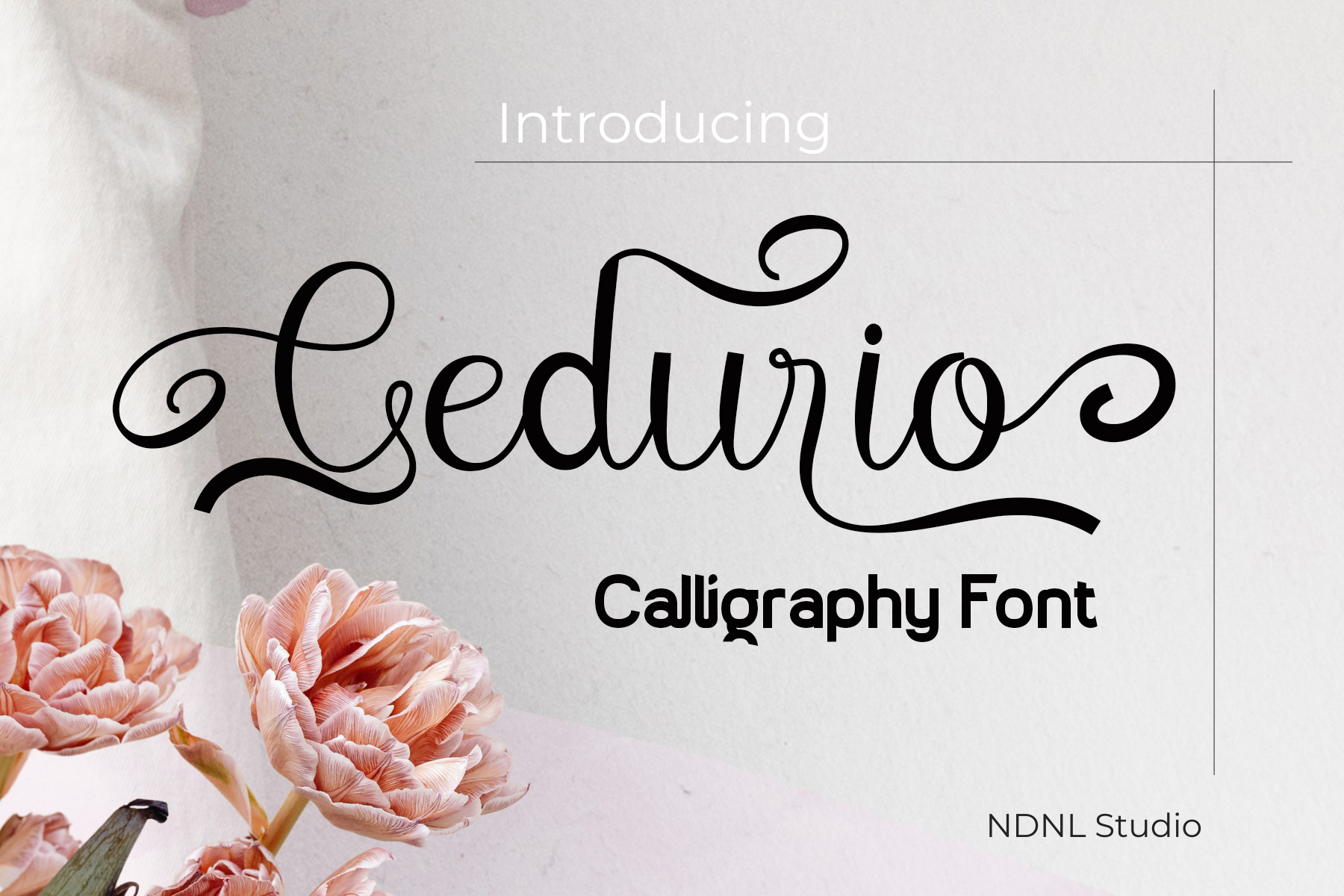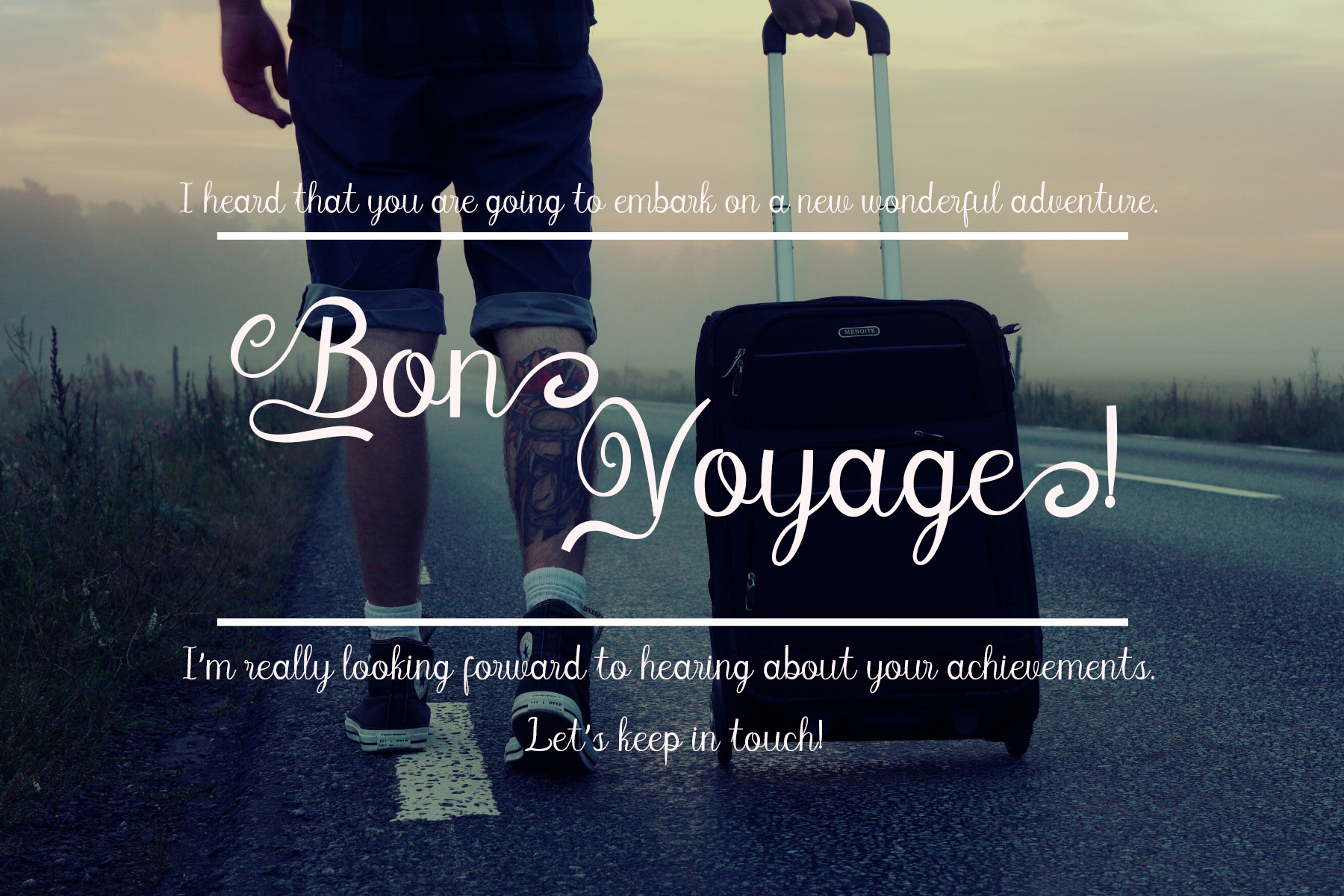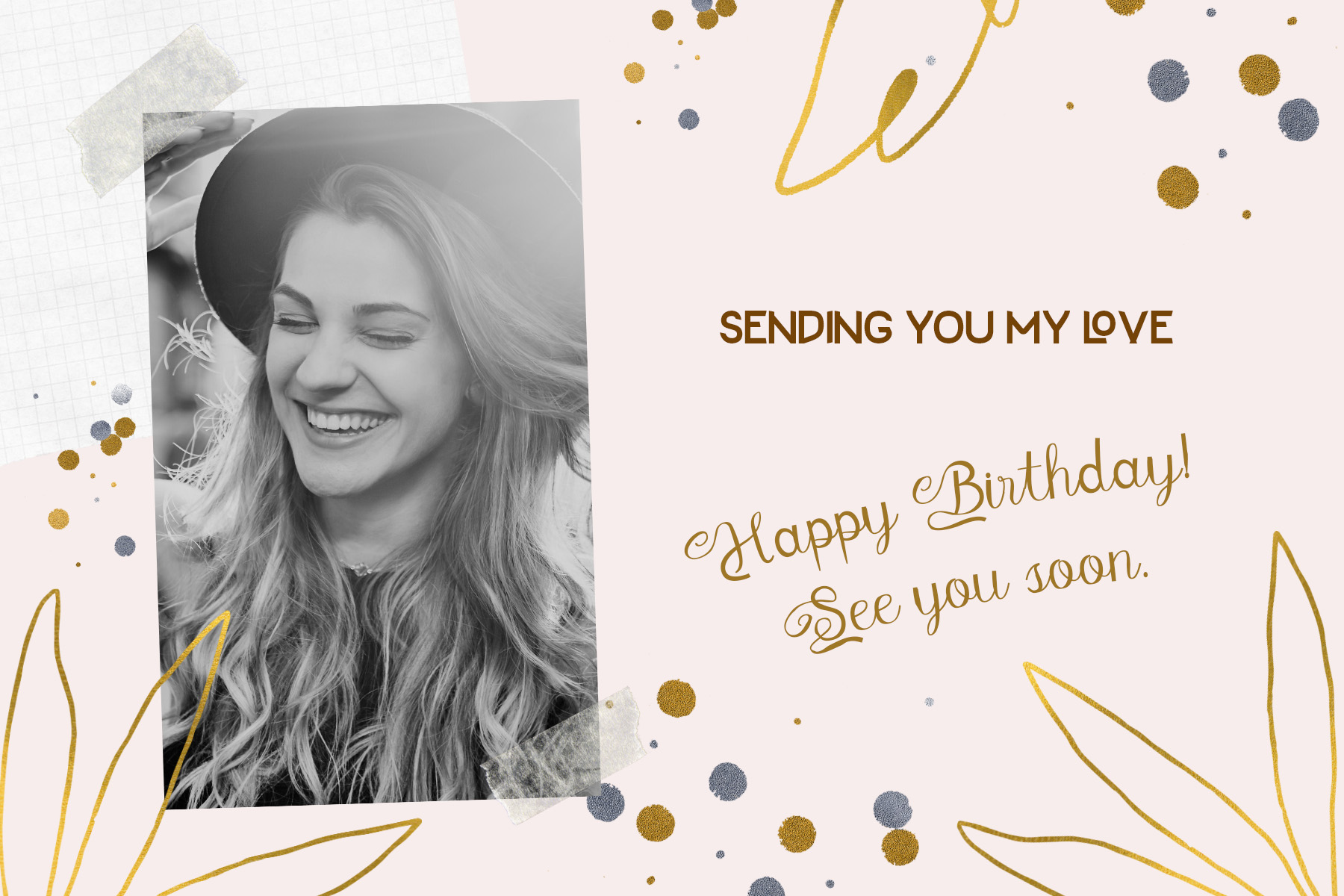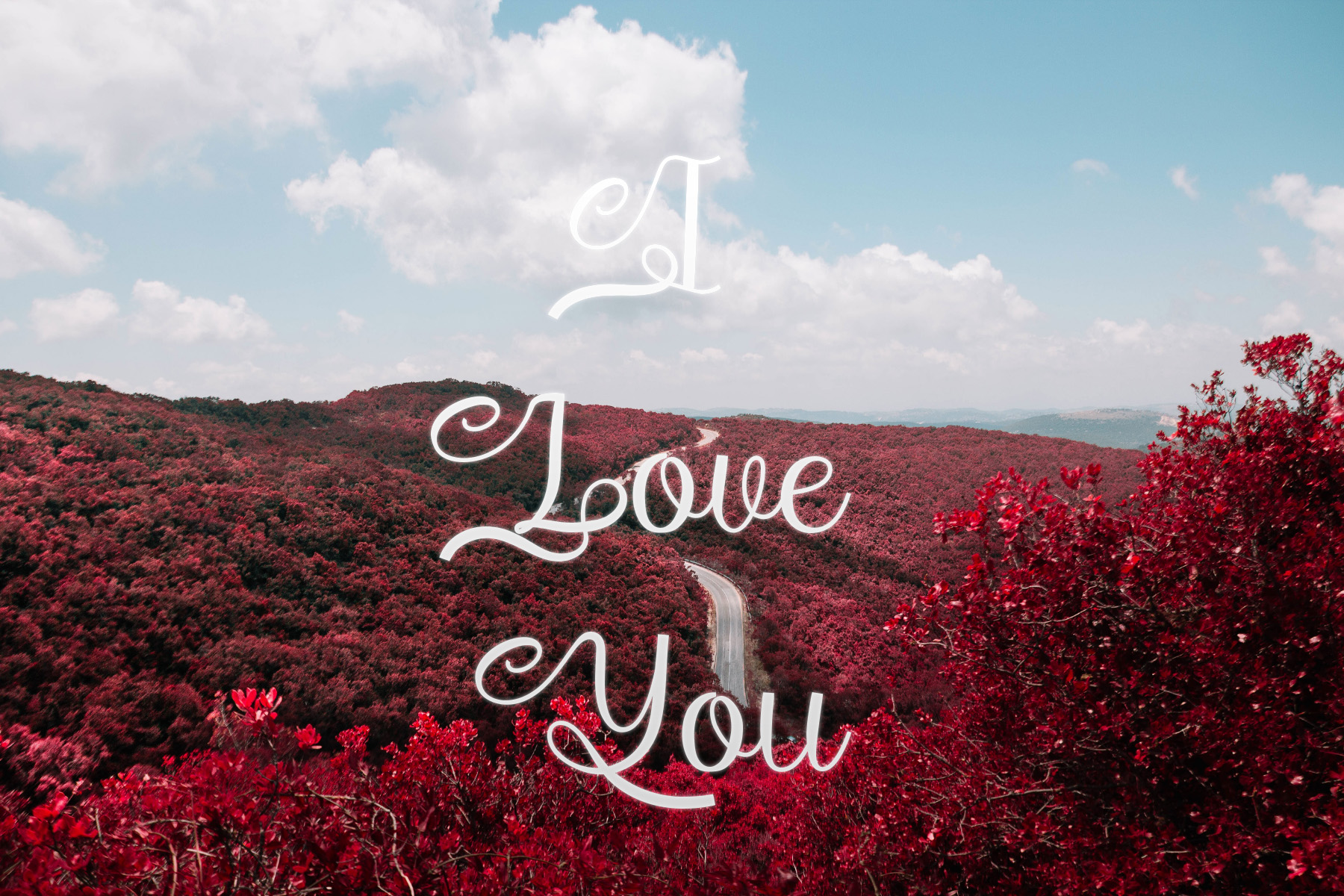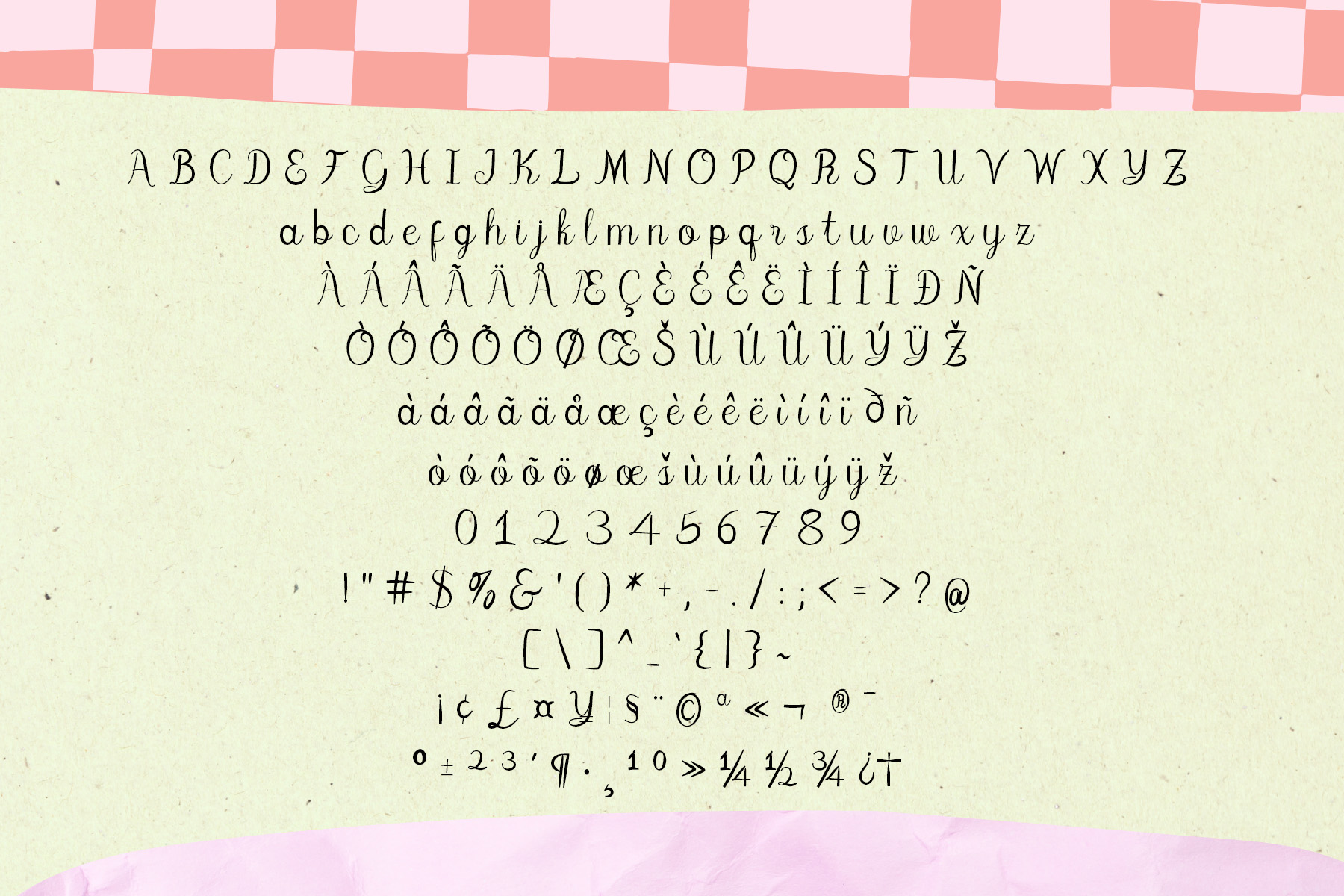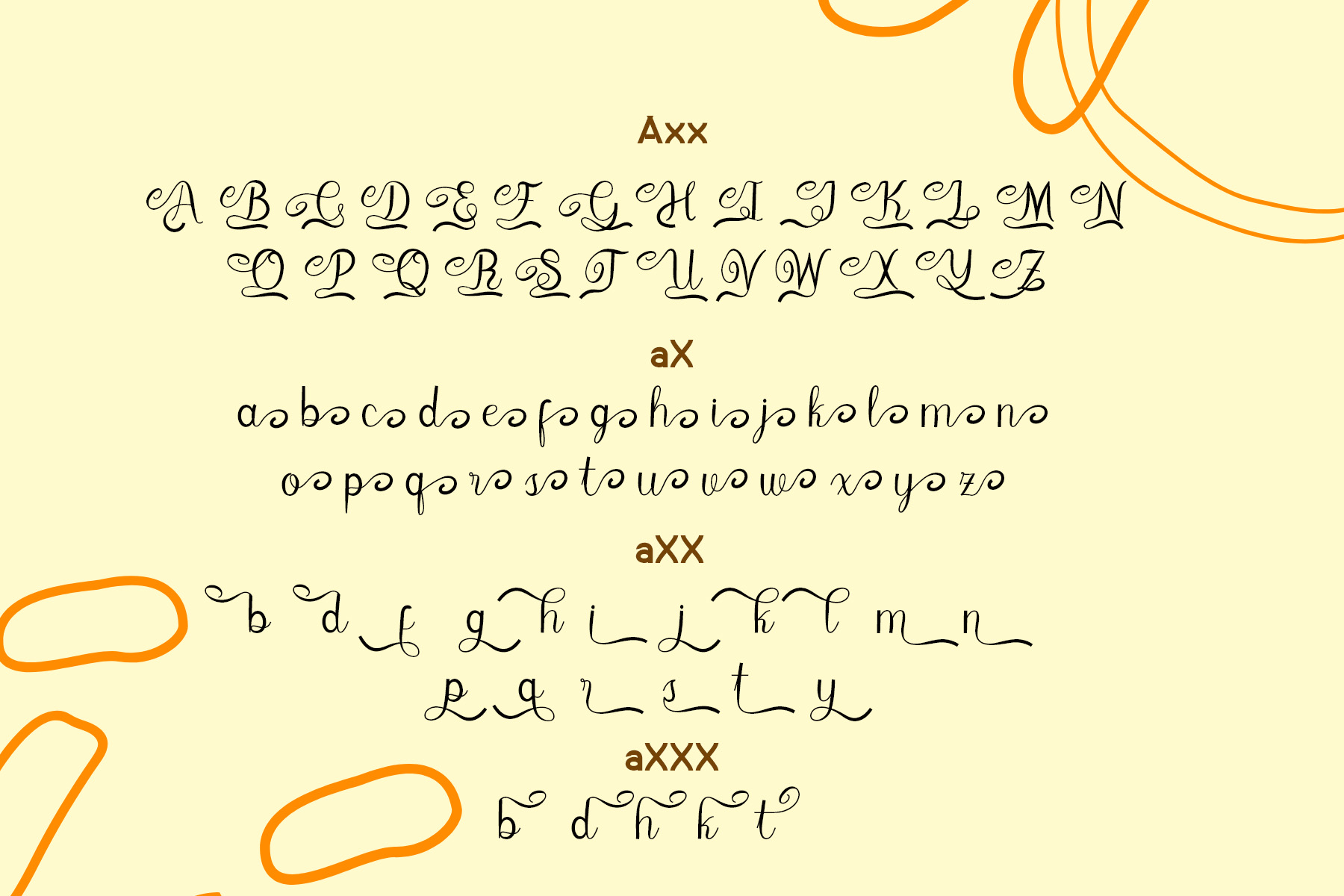
Introducing Cedurio!
Cedurio is an elegant and graceful Calligraphy font designed with artistic swashes and decorative curves. Its smooth strokes and stylish letterforms make it perfect for romantic, luxurious, or personal projects. Whether you are designing wedding invitations, greeting cards, branding logos, or standout titles, Cedurio brings a handcrafted yet modern touch that leaves a lasting impression.
This font allows you to use decorative glyphs even in applications that do not support OpenType features.
Decorative Font User Guide
This font includes special decorative glyphs that can be accessed through simple typing shortcuts.
- Examples:
Axx → Decorative A (if available)
aX → Decorative a (if available) - And also:
AxX → Decorative A2 (if available)
aXX → Decorative a2 (if available)
aXXX → Decorative a3 (if available) - To separate ligatures:
Insert the shortcut xXx between two characters.
Example: ab → axXxb → a b